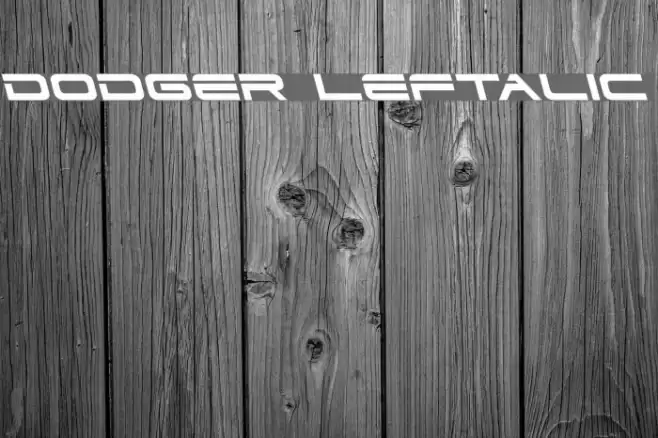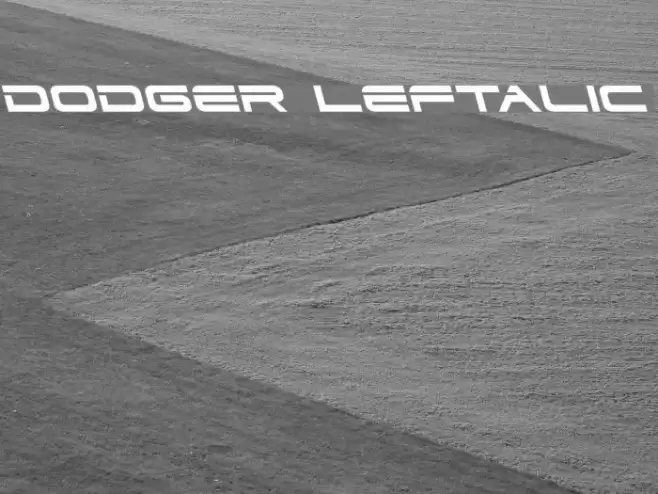
Dodger Leftalic Font
Dodger Leftalic Description
This font features a futuristic and angular design, characterized by its sharp edges and geometric shapes. The letters are slightly slanted, giving a dynamic and forward-moving appearance. The uppercase and lowercase letters maintain a consistent style, with a uniform thickness that adds to its modern aesthetic. Numbers and special characters follow the same design principles, ensuring a cohesive look across all elements. The font's unique style makes it stand out, suitable for projects that require a bold and innovative touch.
A futuristic, angular font with a dynamic slant and geometric shapes from Uncategorized fonts.
- Proposed Projects: Ideal for technology branding, sci-fi movie posters, video game titles, and modern logo designs.